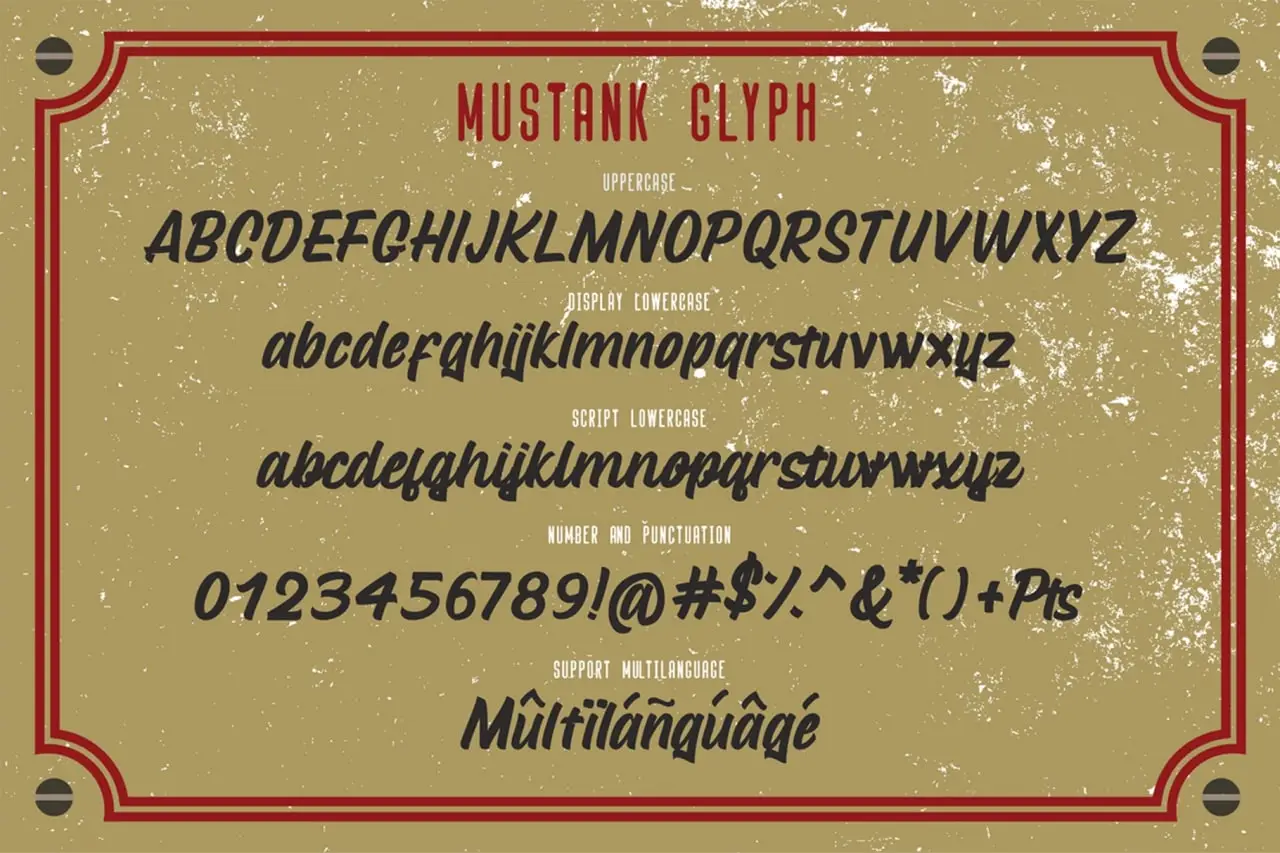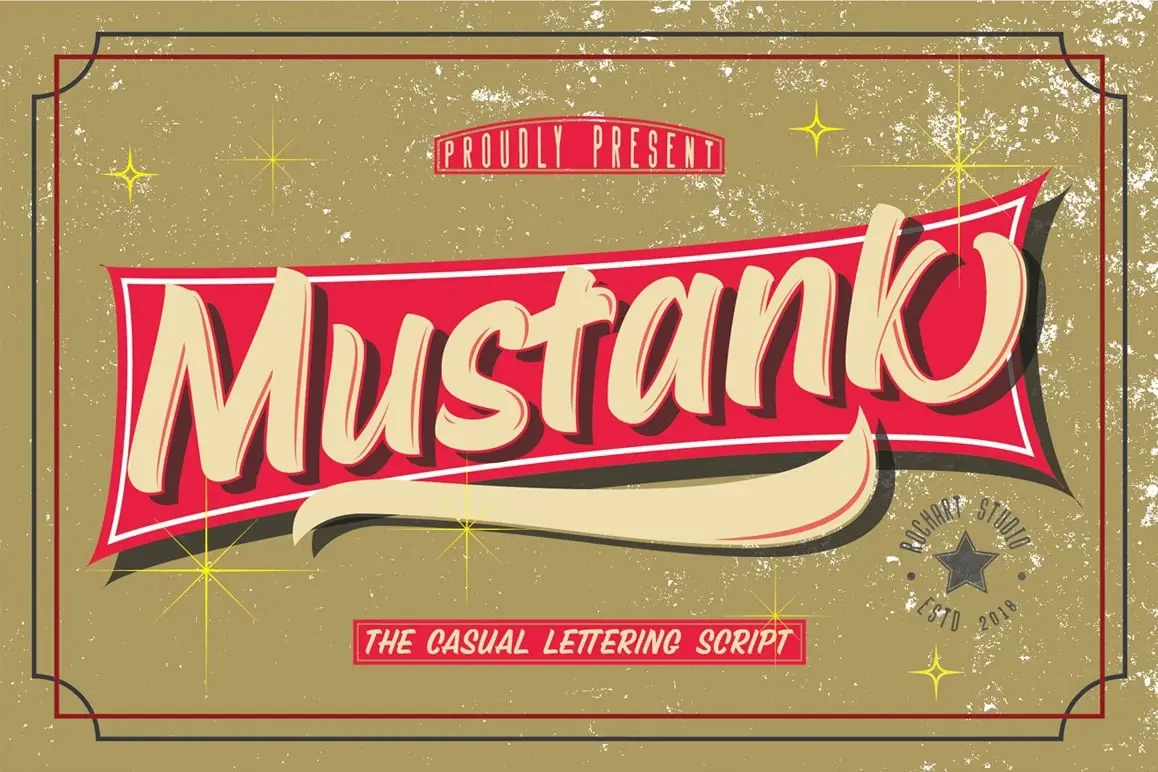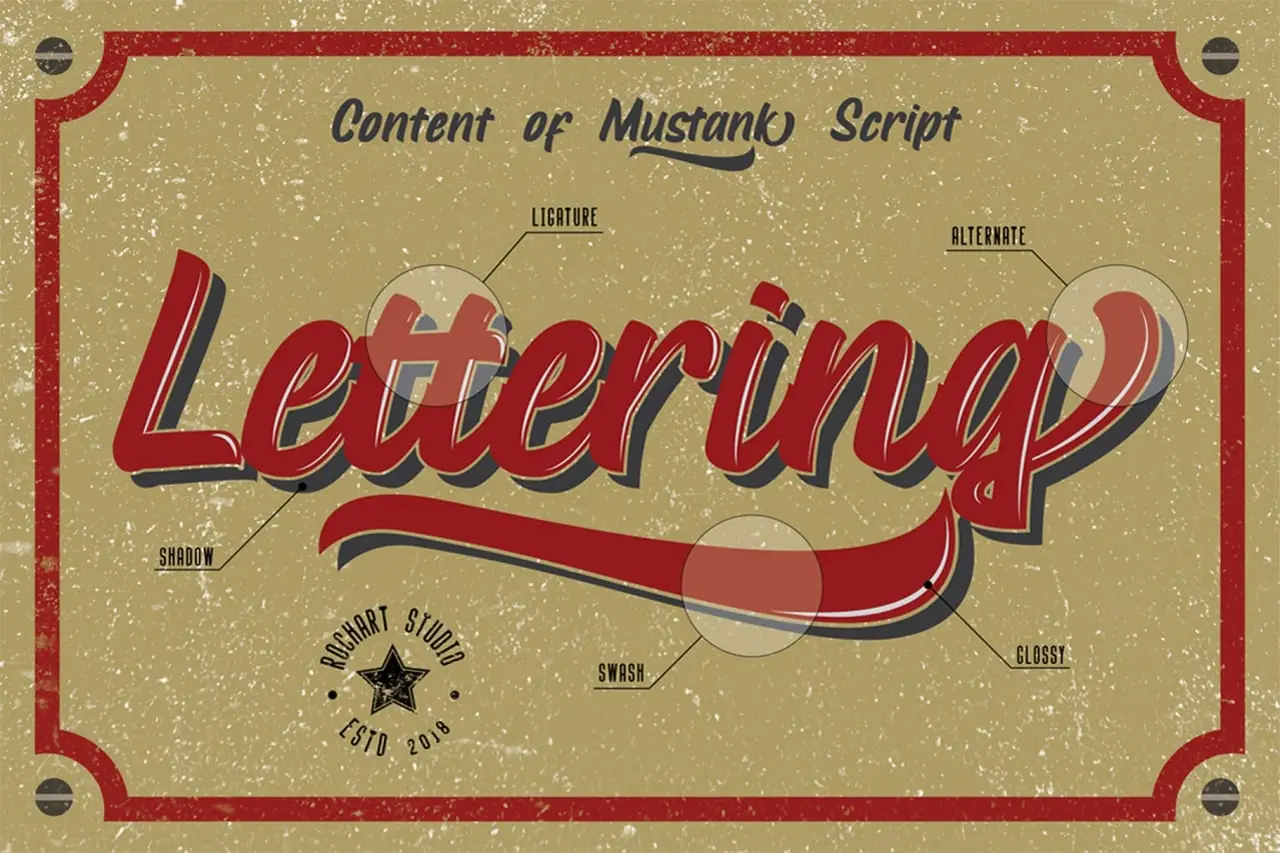
Mustank Font
The Mustank Font is a modern and versatile typeface designed to elevate your creative projects. This font features a clean and elegant style, making it suitable for a variety of applications, from branding to web design.
• Weights: Light, Regular, Medium, Bold
• Ideal for logos, branding, and promotional materials.
• Perfect for both print and digital projects.
• Use in user interfaces for a modern look.